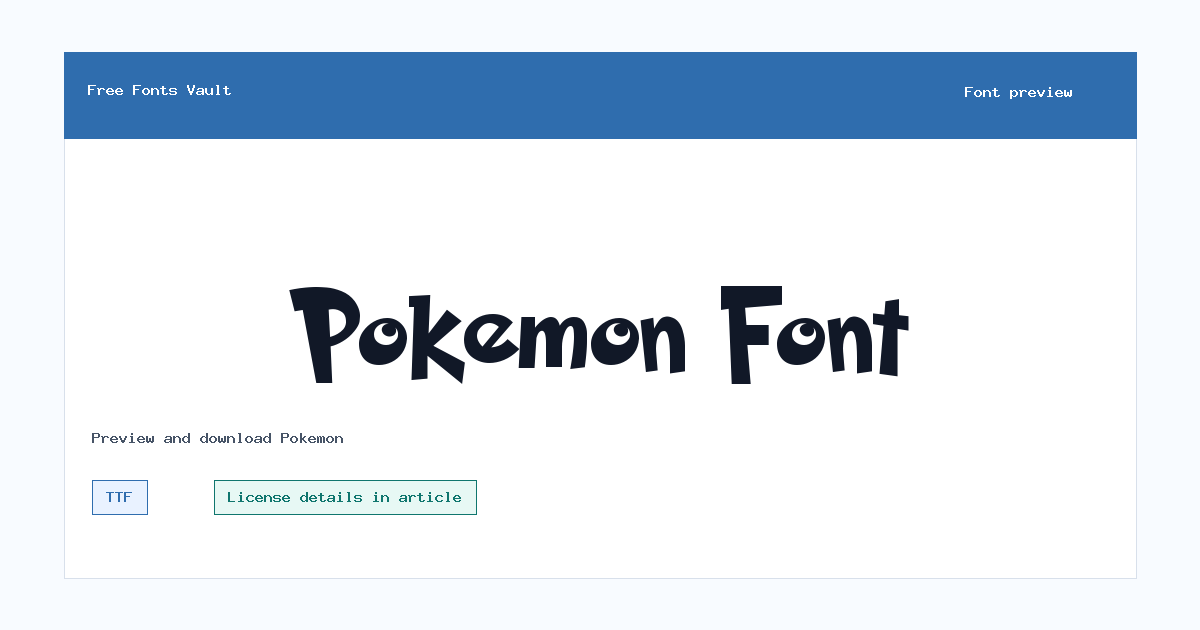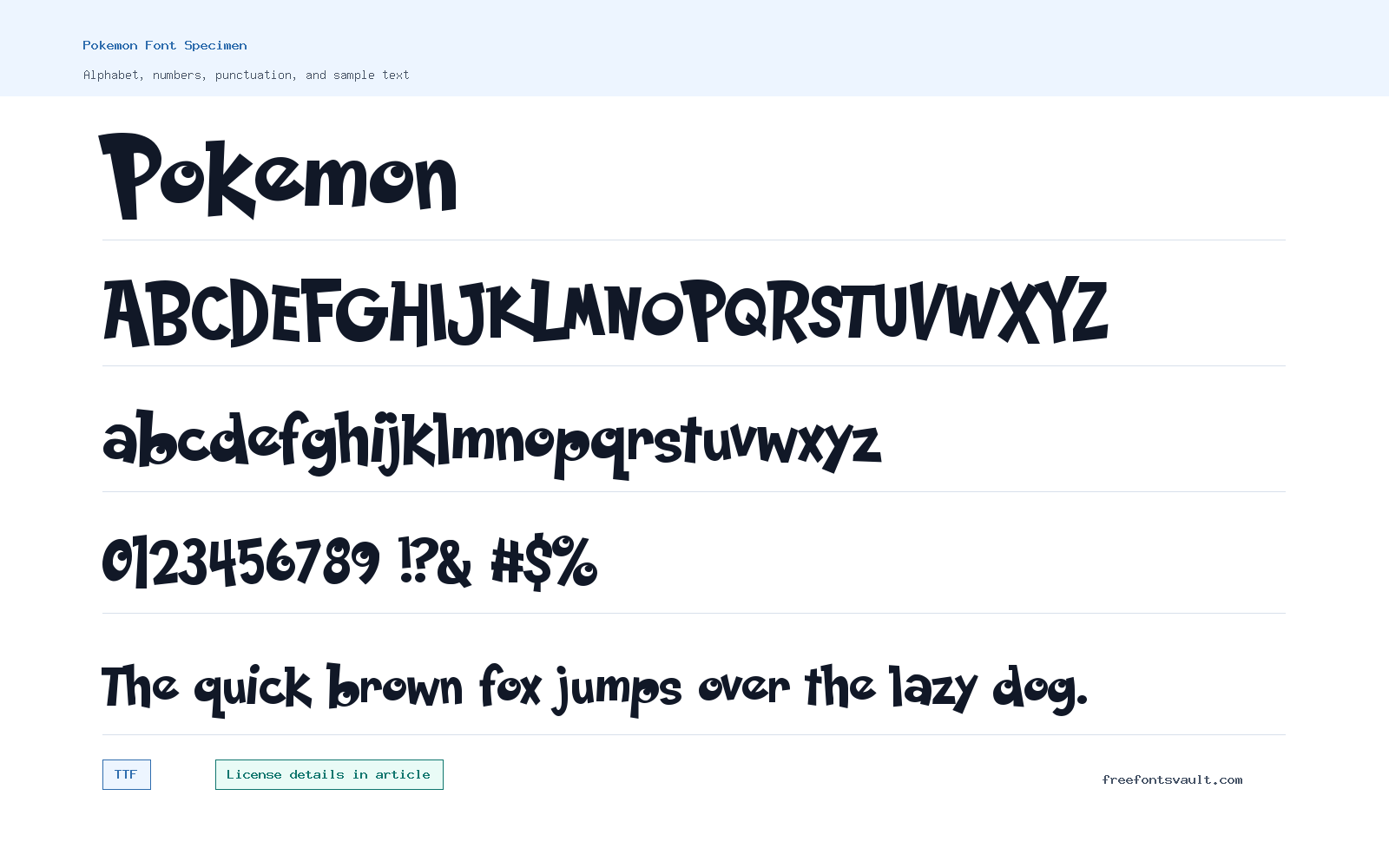
Pokemon
- Designer Pokemon © (MedRida).
Pokemon is a playful display font with a cartoon look made for bold, short text. It works best when you want a fan-style title, preview graphic, or decorative heading rather than long reading text.
About Pokemon Font
The Pokemon font is commonly seen in hollow and solid styles on public font sites, with listings placing it in cartoon, fancy, or outline categories. The file for this page is a TrueType font, so it should work in most desktop design apps that support TTF files. Its shape is built for impact: rounded, chunky letters with a game-like feel that is easiest to read at medium and large sizes.
Use this font for short words, sample headlines, party-style graphics, fan mockups, thumbnails, and casual text experiments. Keep the copy brief, because highly decorative lettering can become harder to read in paragraphs, small labels, or dense layouts. If you are testing it in the preview box, try uppercase words, short names, and two-line titles to see how spacing and outlines behave before downloading.
For a cleaner result, use the font as the visual accent and let a neutral font handle supporting text such as dates, locations, captions, or instructions. That keeps the playful title readable without making the whole design feel crowded.
- Cartoon display style suited to bold headings and short preview text
- Best kept to short words and titles where the cartoon outlines can stay readable
- Fan-style title previews, name graphics, and playful headings
- Posters, thumbnails, invitations, and other short decorative text tests
What is this font best used for?
It is best for short decorative text such as fan-style titles, thumbnails, party graphics, and preview mockups. It is not a good choice for long paragraphs.